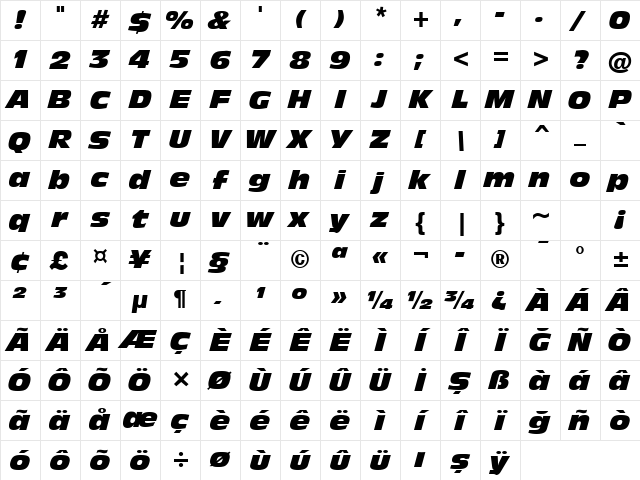
Complete Incised901 NdIt BT Italic glyph index. Displaying only characters natively supported by Incised901 NdIt BT Italic font.
Incised901 NdIt BT is a composed and adaptable typeface that performs quietly and consistently across a wide range of design contexts. The slanted form adds forward momentum and visual energy.